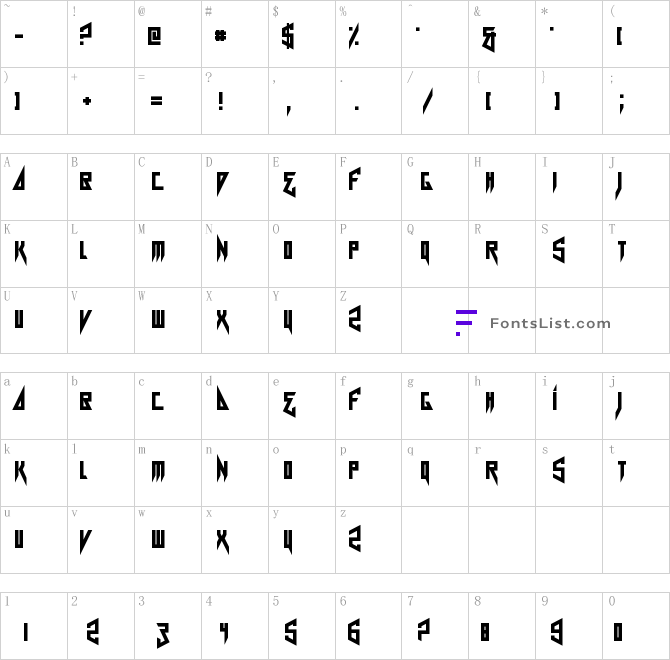
- Font Name:Card Shark
Card-Shark-Regular.ttf is a very beautiful artistic font, Card-Shark-Regular.ttf is widely used in the design and printing of various books and pictures,Card-Shark-Regular.ttf has a strong visual impact,Card-Shark-Regular.ttf is a commonly used font in newspapers, magazines and books, and is used in posters, e-commerce Poster design, store design, logo design, font design and other fields.Card-Shark-Regular.